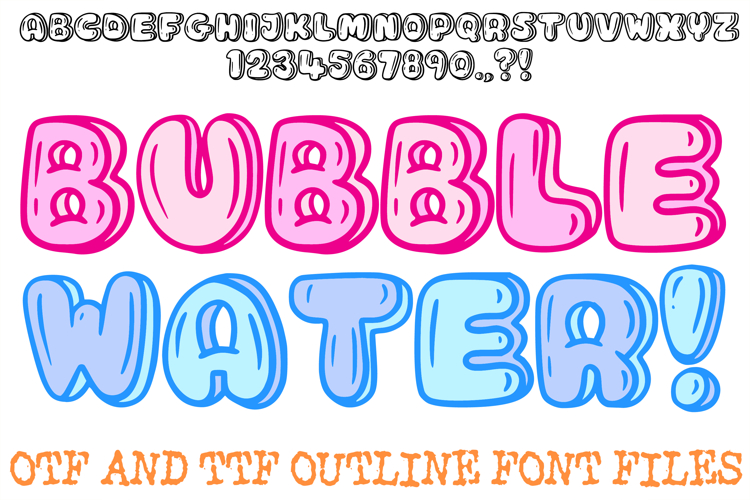
Bubble Water Alphabet Lettering Font Liquid ABC OTF Type
The Bubble Water Font is a refreshing, high-impact display typeface that perfectly captures the buoyant energy of underwater bubbles and crystal-clear streams. Featuring bold, voluminous letterforms with smooth, rounded curves and strategic "reflective" highlight marks, this font is a premier choice for designers working on aquarium signage, summer pool party invitations, beverage branding, and aquatic-themed social media content.
The design creates a sense of lighthearted fluidity, with thick outlines that make each character feel as if it were floating. Whether you are building an identity for a seaside surf shop or designing vibrant children’s apparel for the summer, this font provides a fun, "wet-look" aesthetic that is both playful and remarkably legible.
Glossy Reflective Accents: Interior "shine" lines give the letters a 3D, polished look, suggesting sunlight hitting a water surface.
Buoyant Bubble Construction: The heavy, rounded weight of the characters provides a friendly, approachable, and modern "pop" aesthetic.
Aquatic Themed Design: Perfectly tailored for projects that need a cool, refreshing vibe—from water park brochures to oceanic educational materials.
High-Visibility Display: Bold outlines and solid forms ensure that your headlines remain impactful and clear against various digital or print backgrounds.